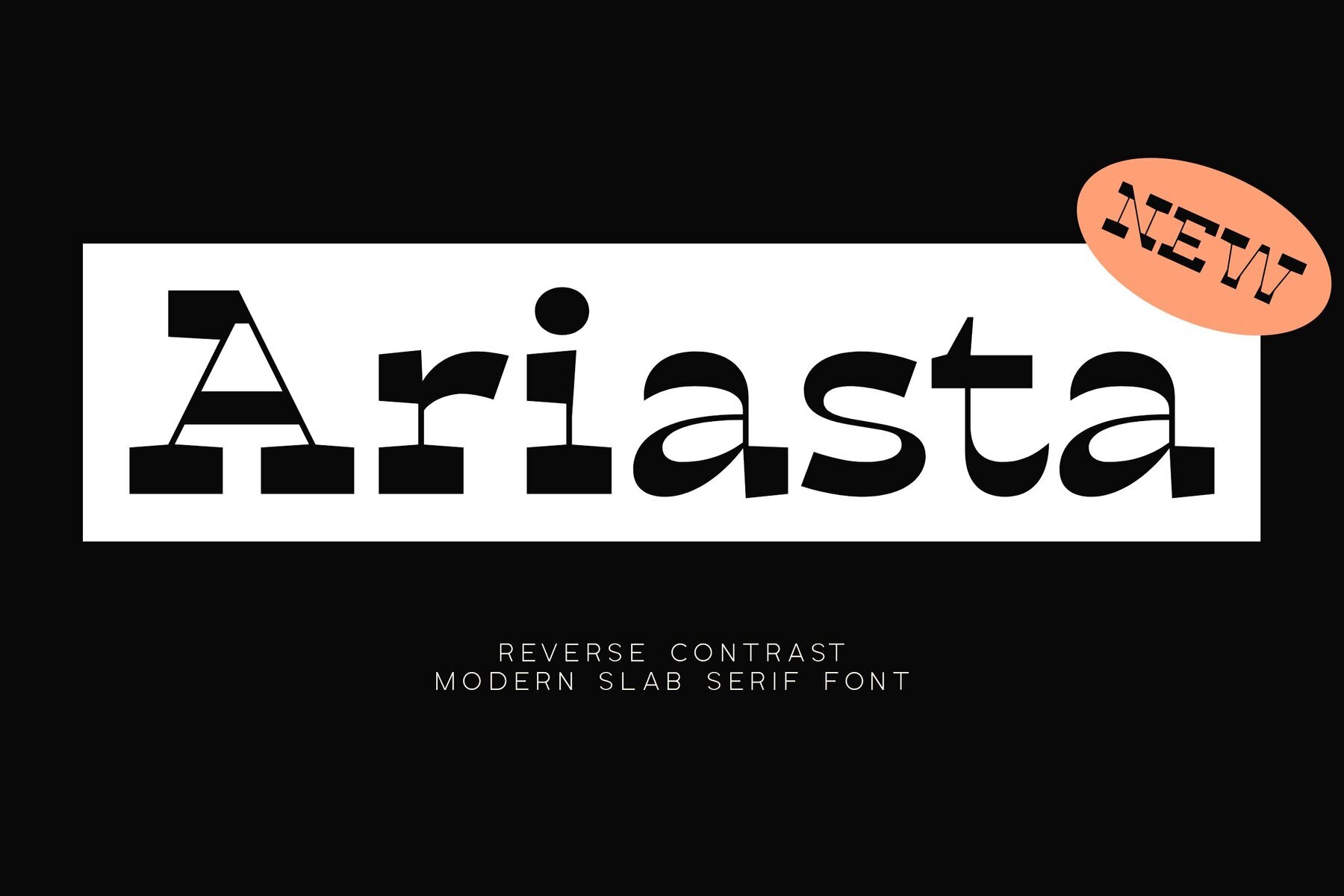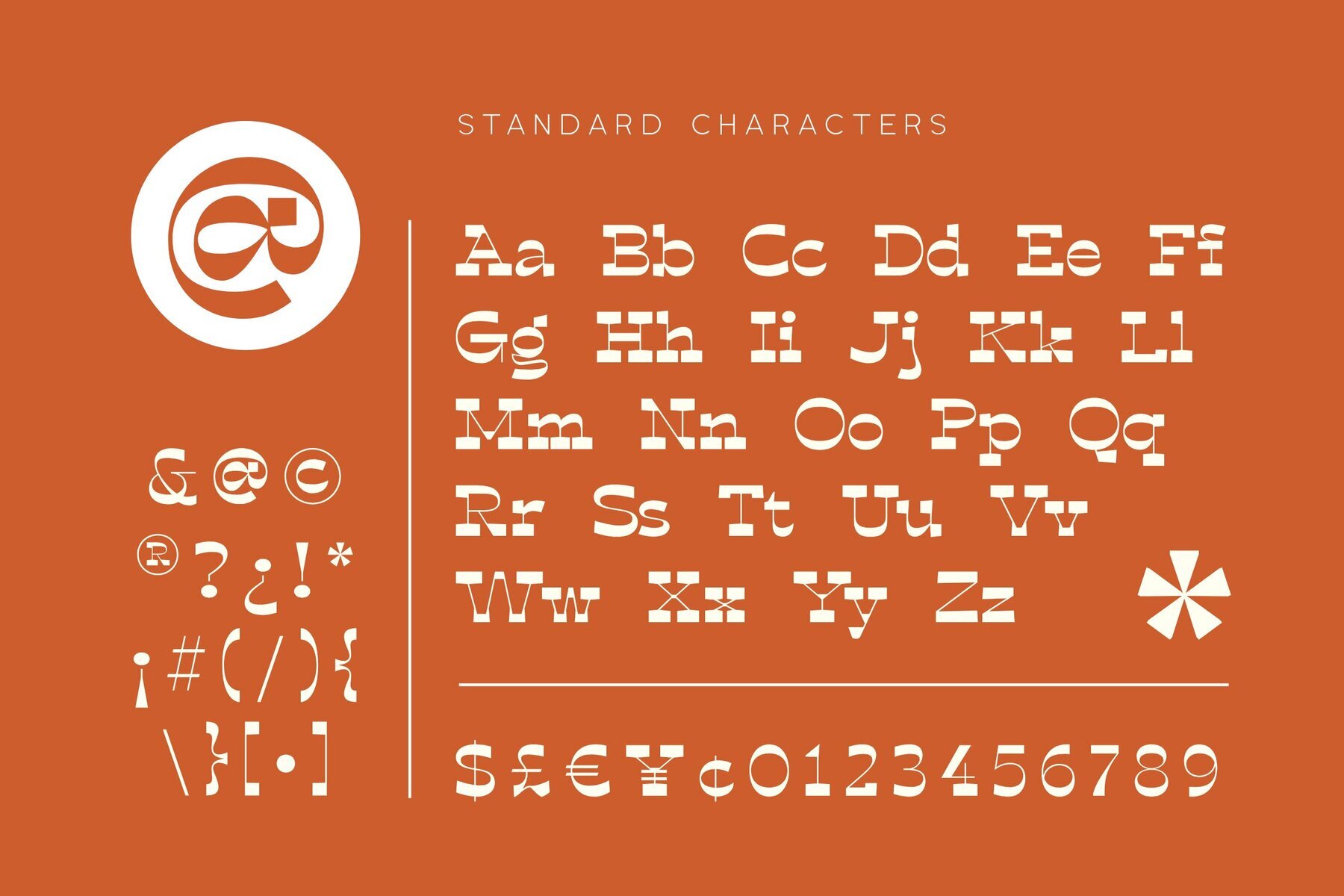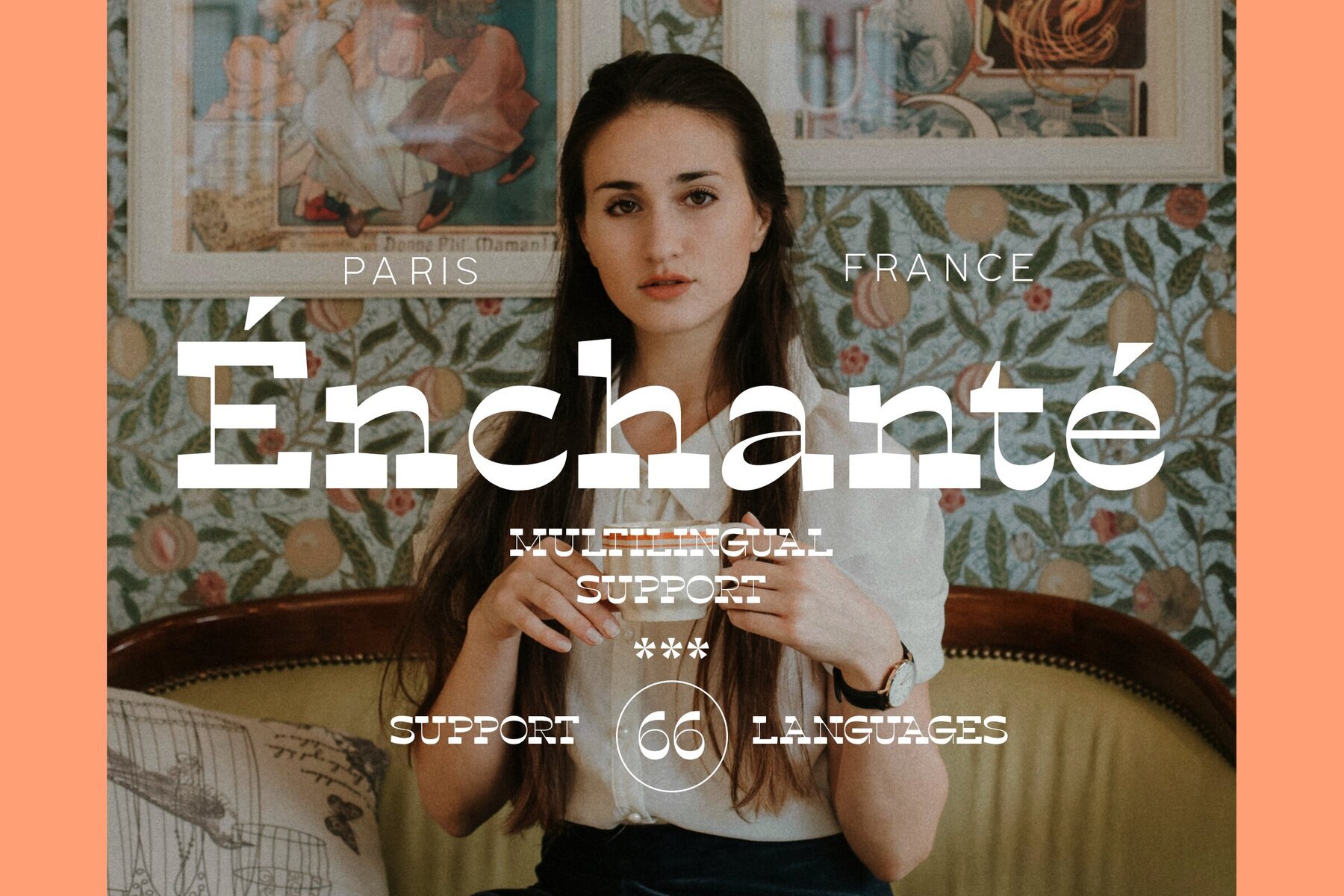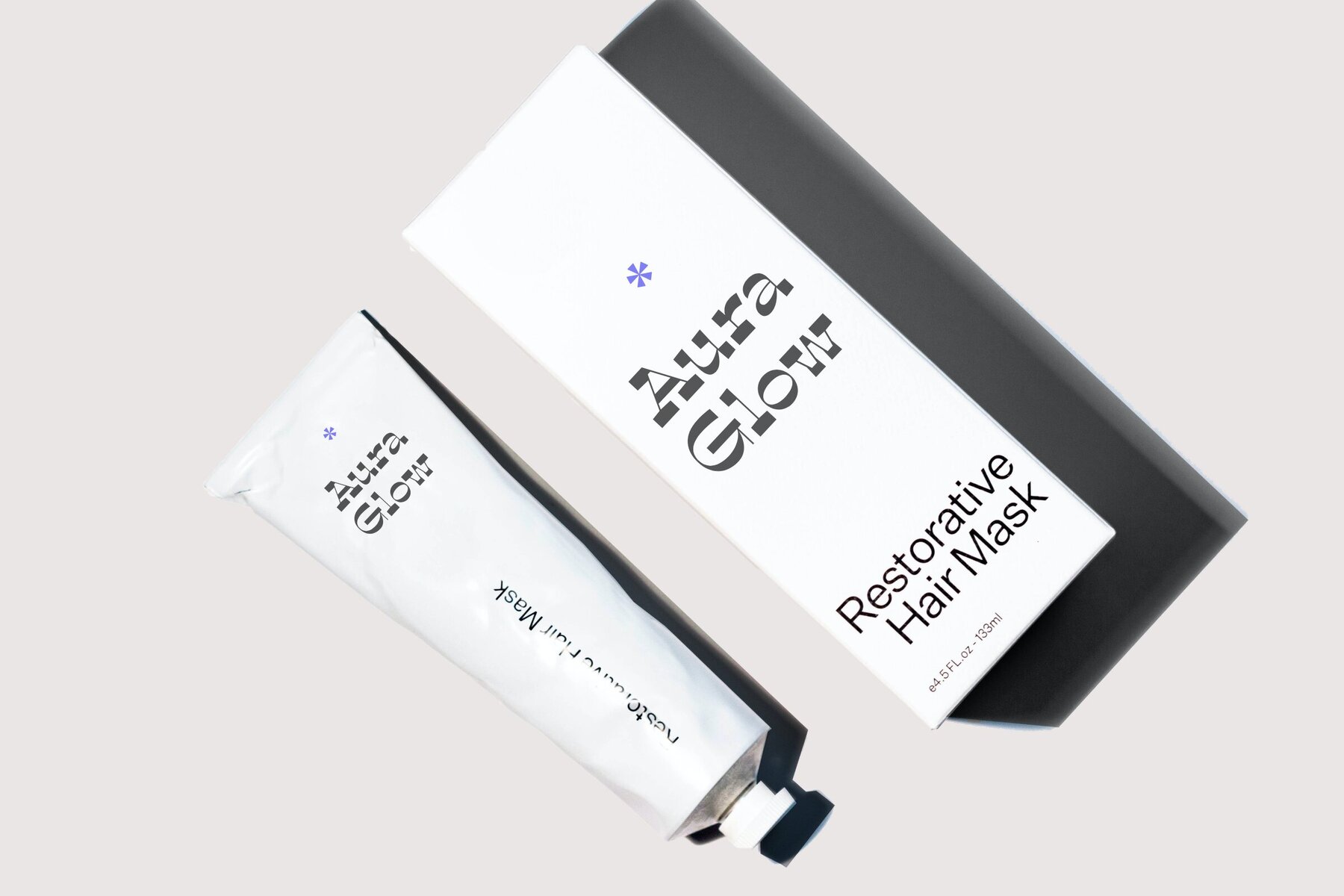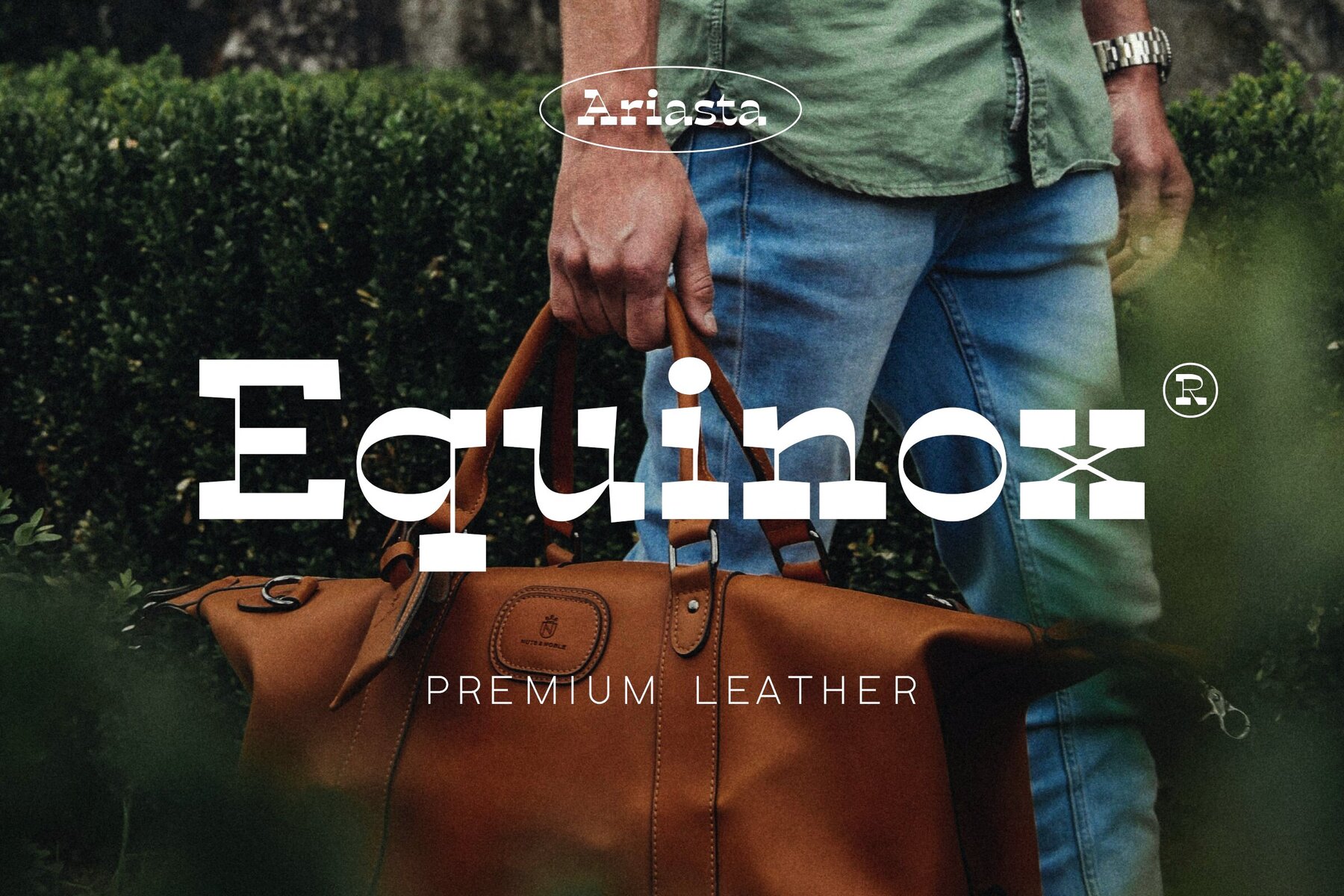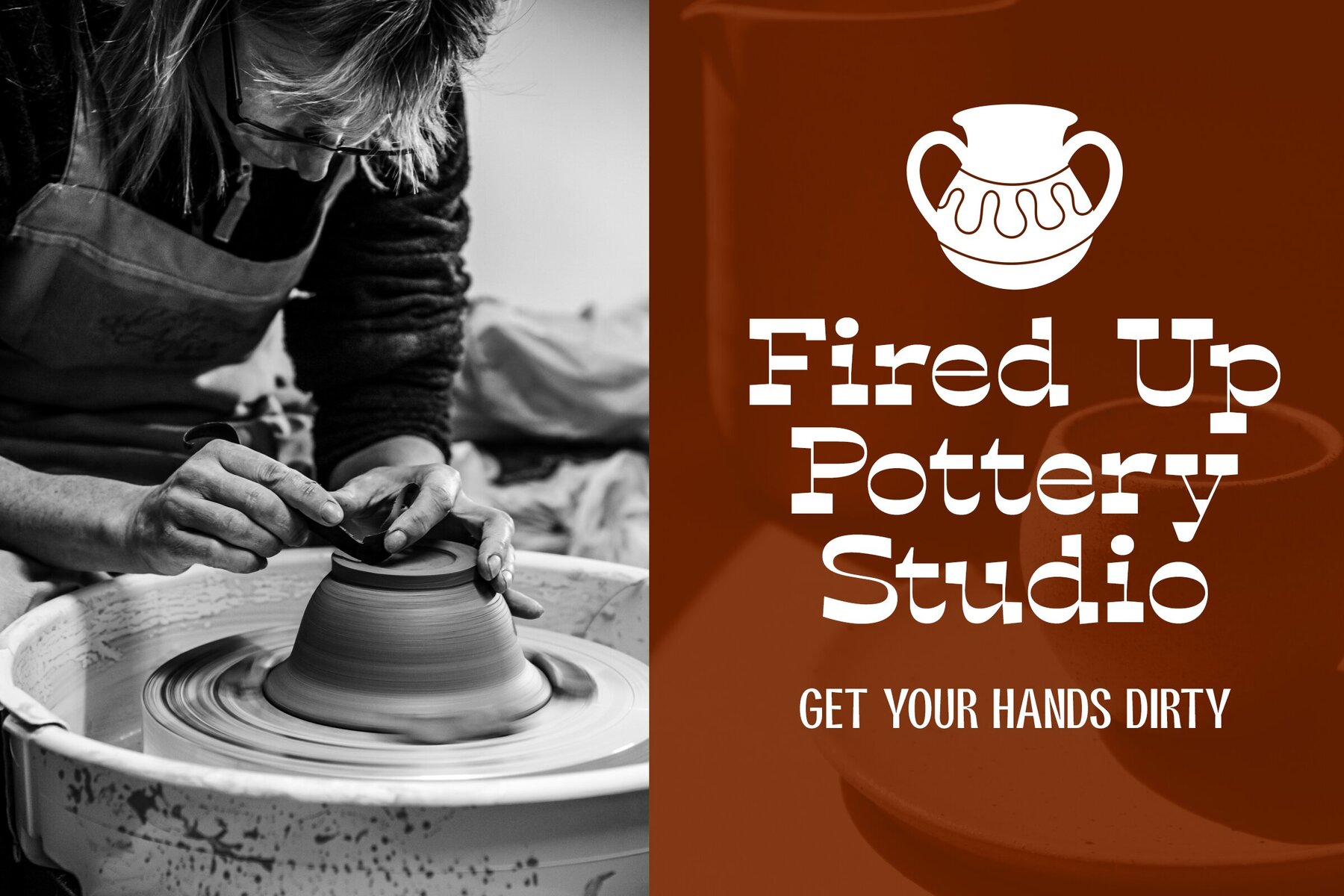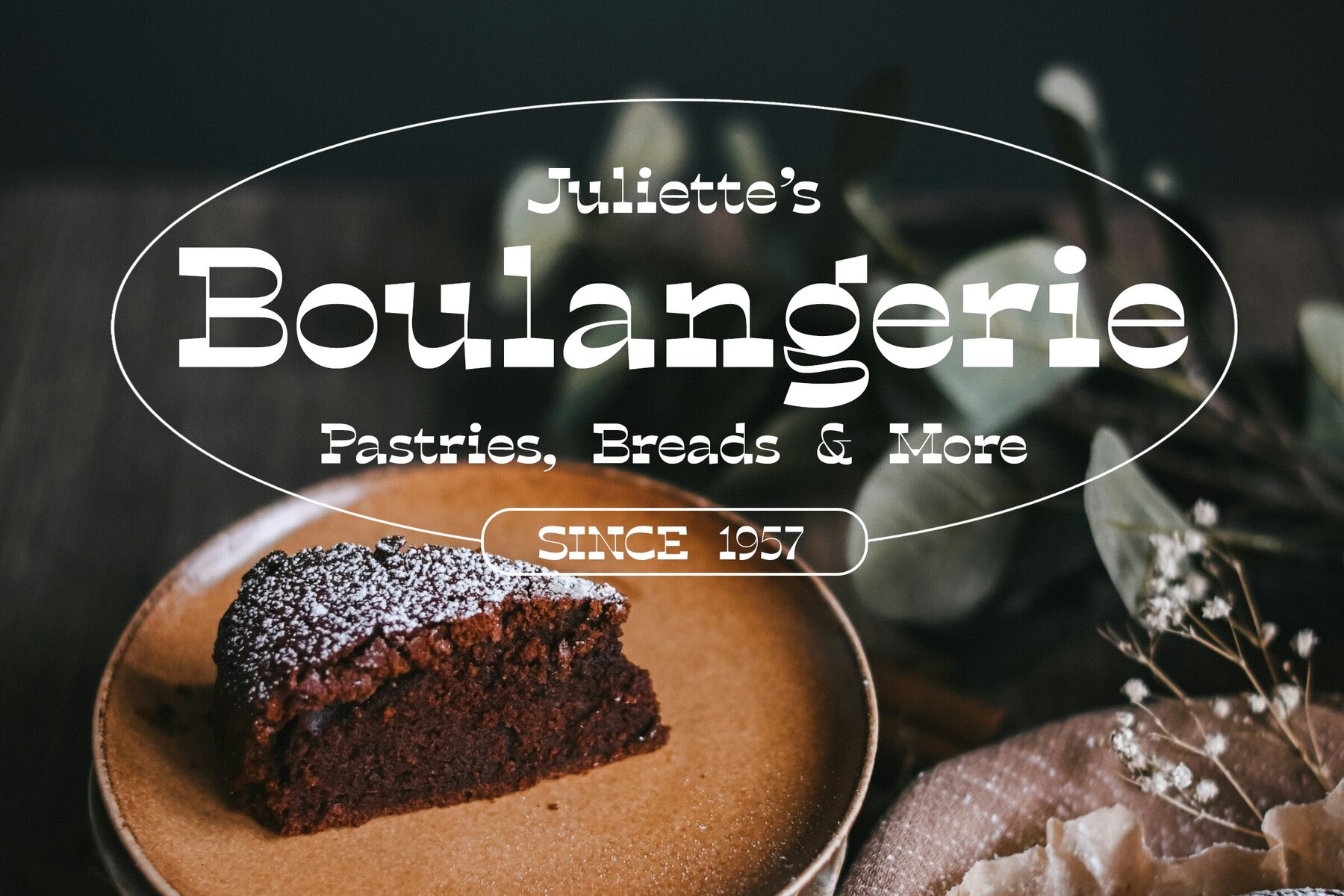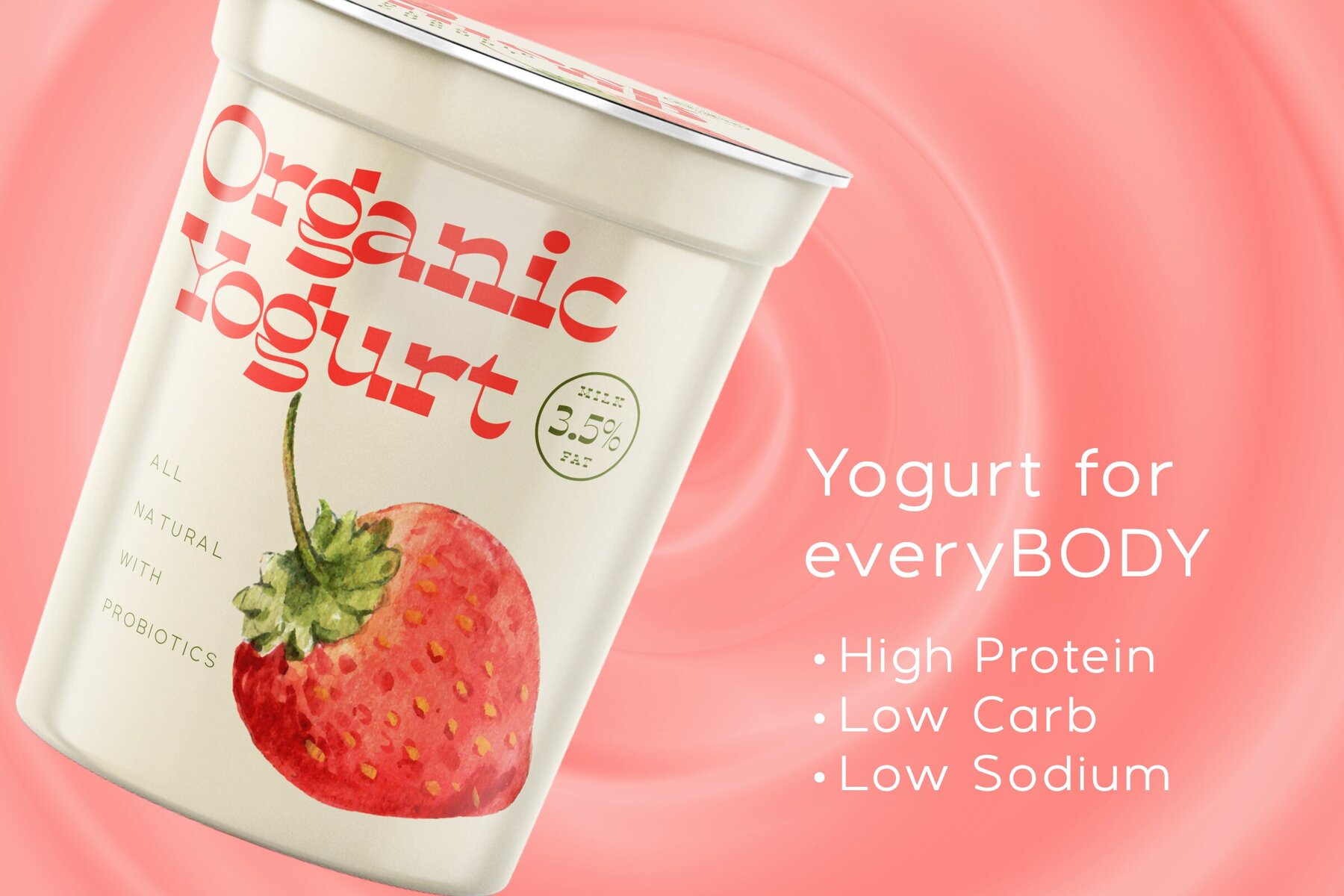
Ariasta Font
Ariasta Regular
Ariasta is a cool reverse contrast slab serif display font that adapts a traditional western style for use in modern designs. It's contrasting thickness makes it a great choice for unorthodox designs that need to stand out from the crowd.